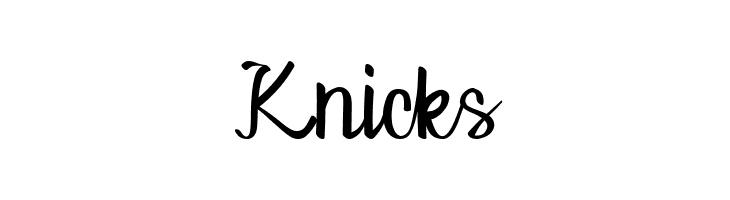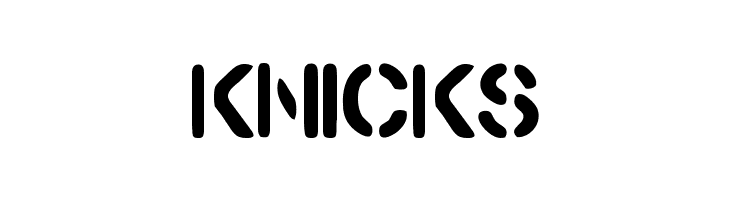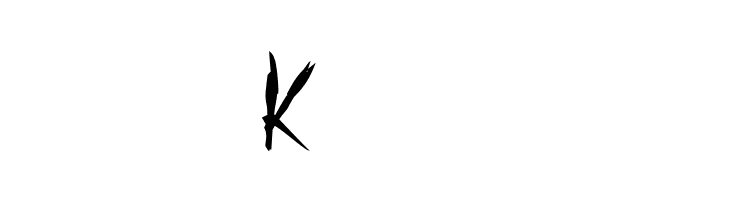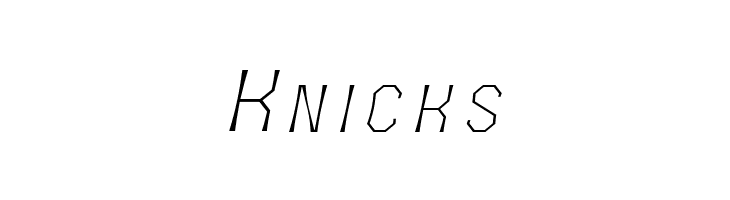
• The October Two Light
( 7NTypes - Situjuh Nazara - 7ntypes.com )
A geometric, angular font with consistent stroke width and a modern aesthetic.
• The October Two Light Italic
( 7NTypes - Situjuh Nazara - 7ntypes.com )
A modern, geometric light italic font with angular lines.
• The Octopus
A decorative dingbat font with diverse octopus illustrations.
• The Plumber
A dynamic and fluid script font with elegant, flowing lines.
• The Quick
A playful, hand-drawn font with sketch-like strokes and artistic flair.
• the quick
A bold, geometric font with sharp angles and a futuristic feel.
• The Quietty
A modern, cursive font with smooth, continuous strokes and elegant curves.
• The Second World War
A bold, stencil-like font with thick strokes and cut-out sections, ideal for impactful designs.
• THE SHANGHAI GHOST
A bold, jagged font with an artistic, graffiti-like style.